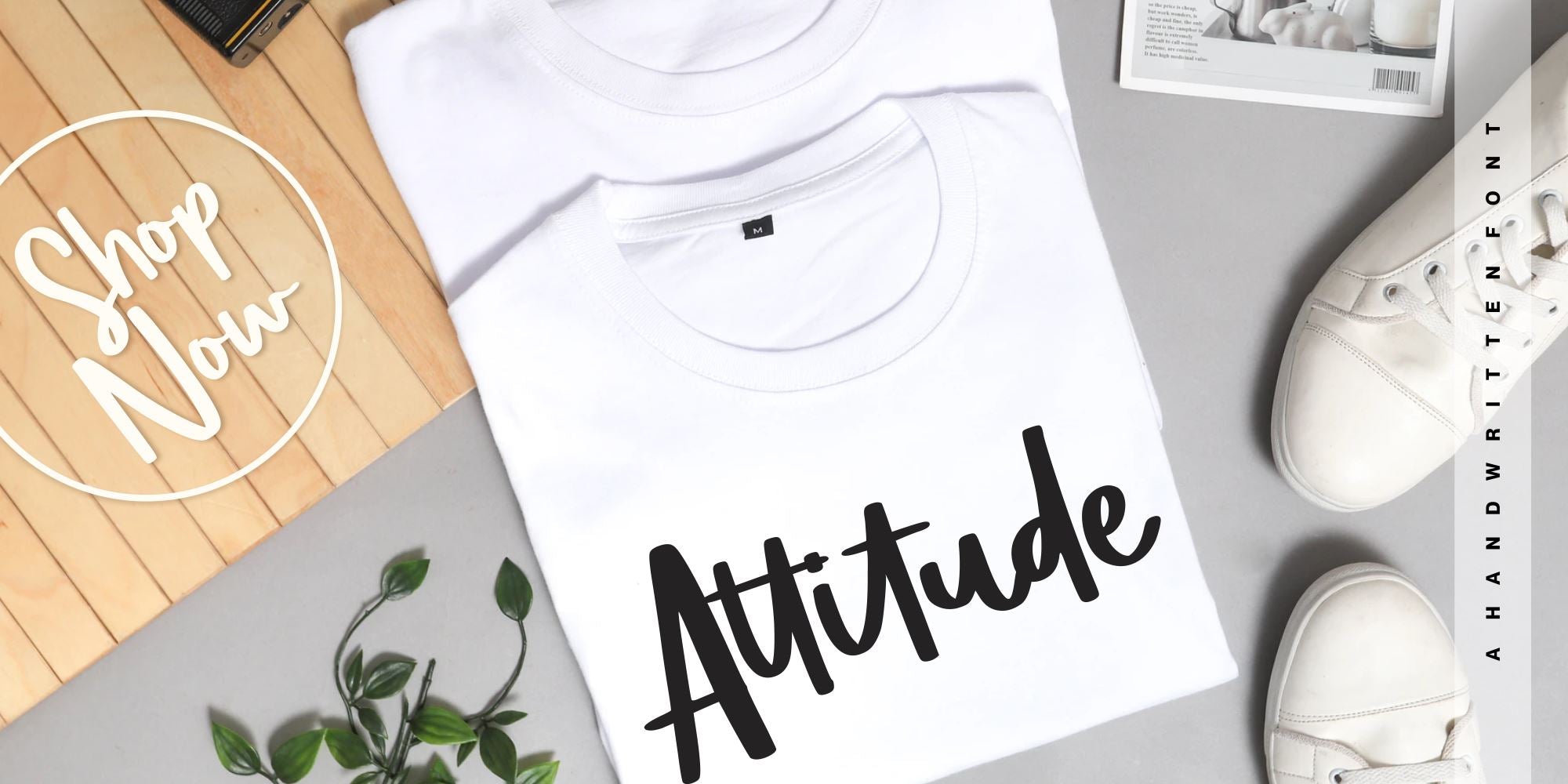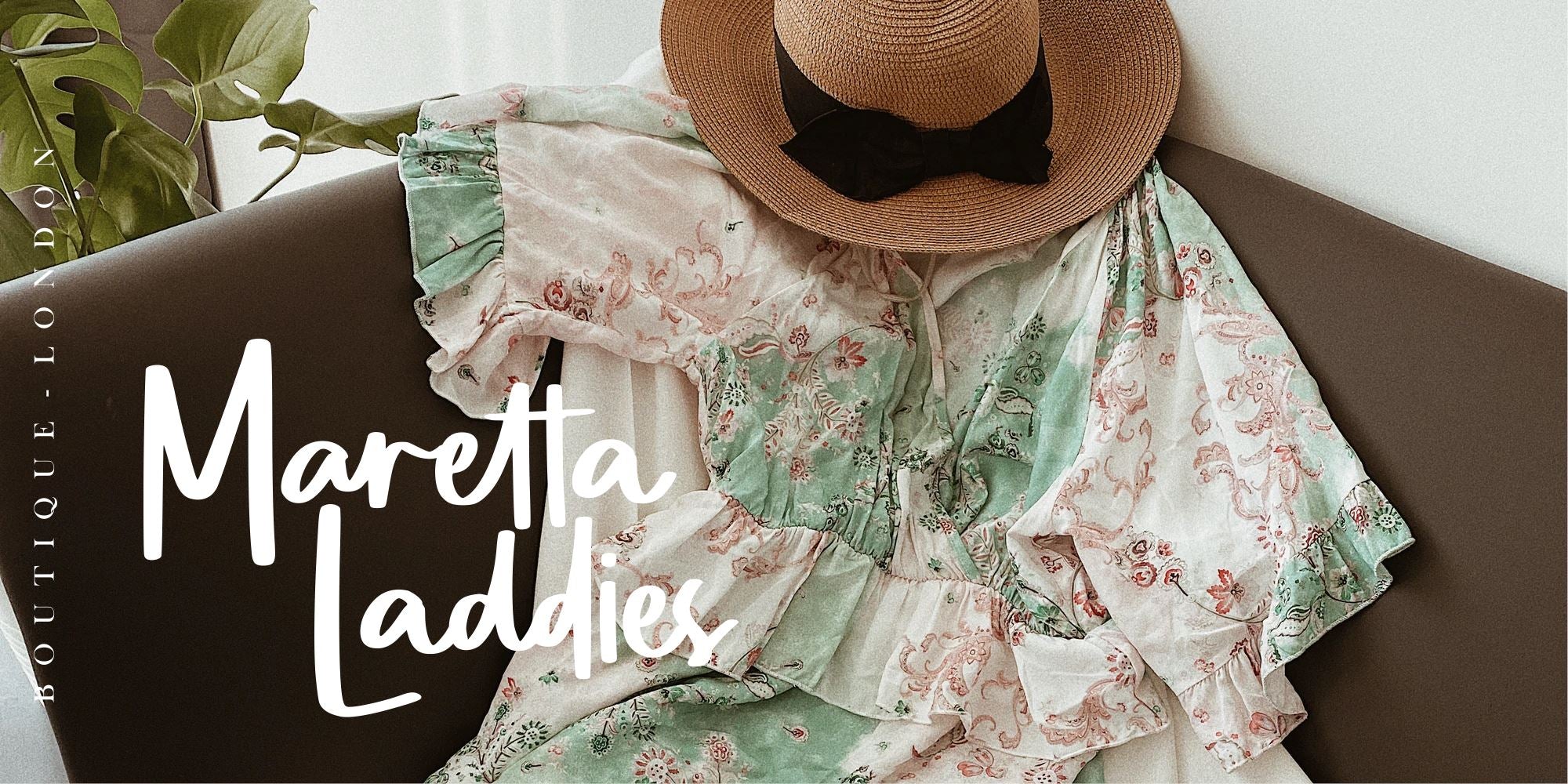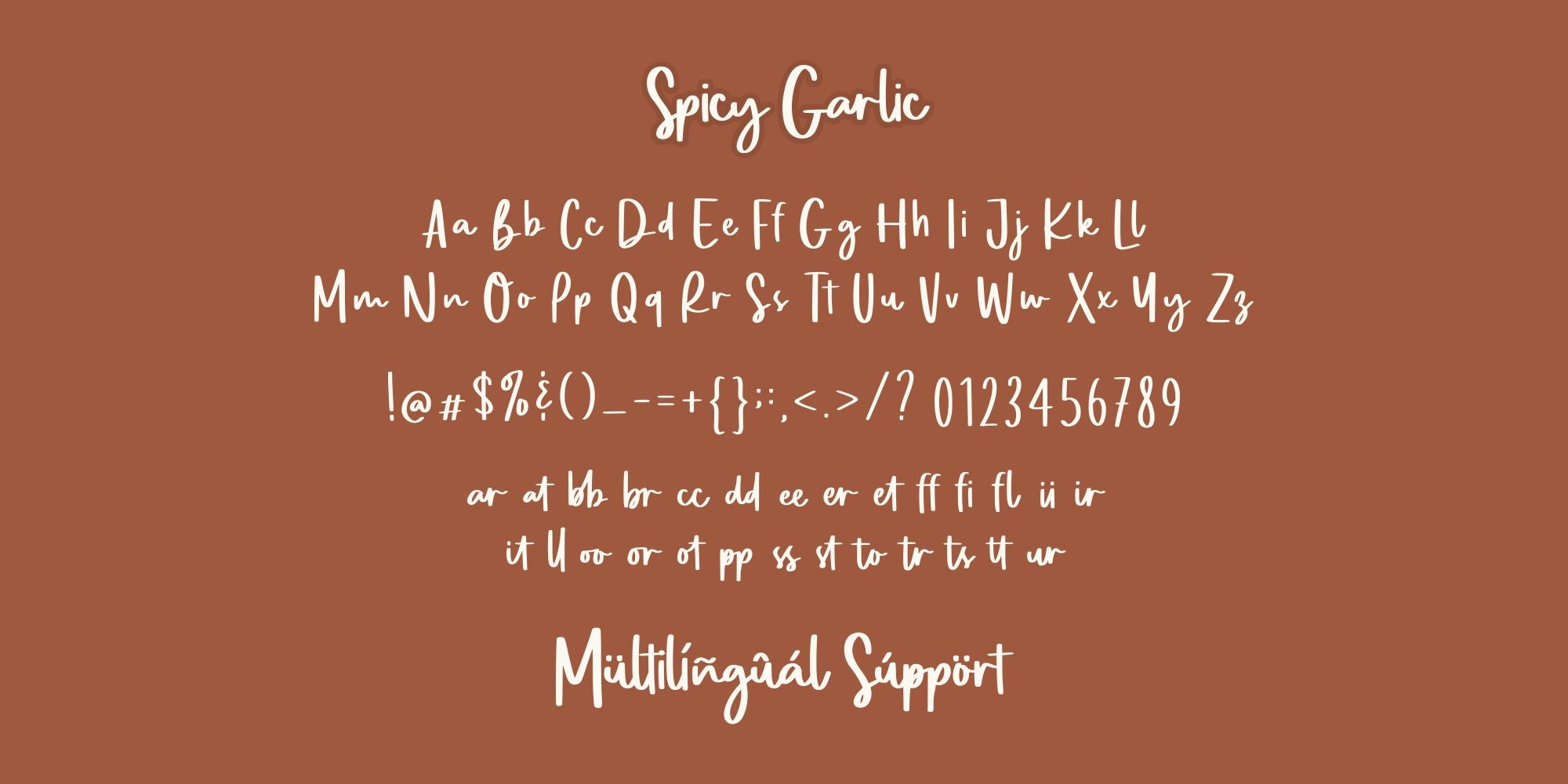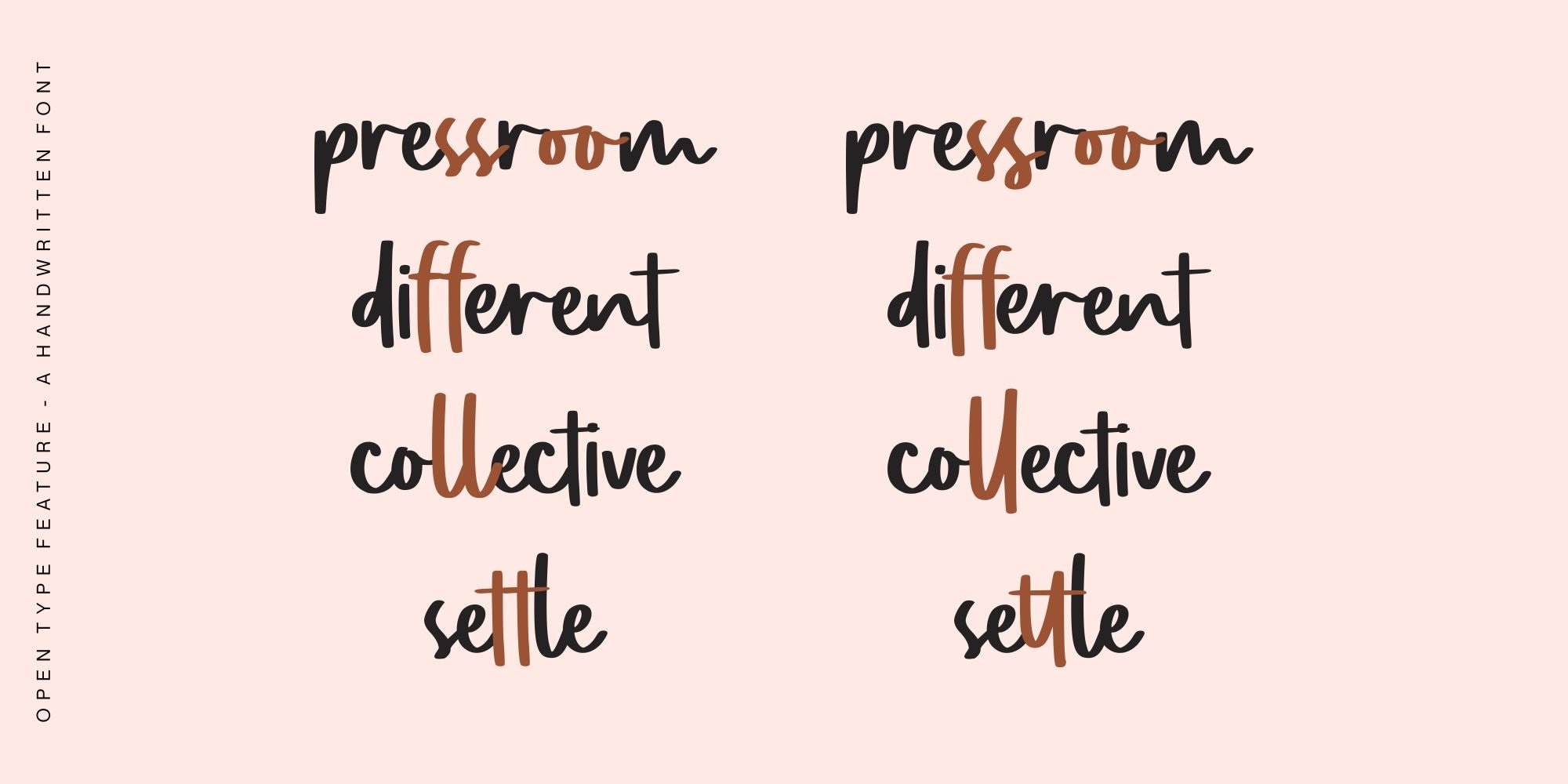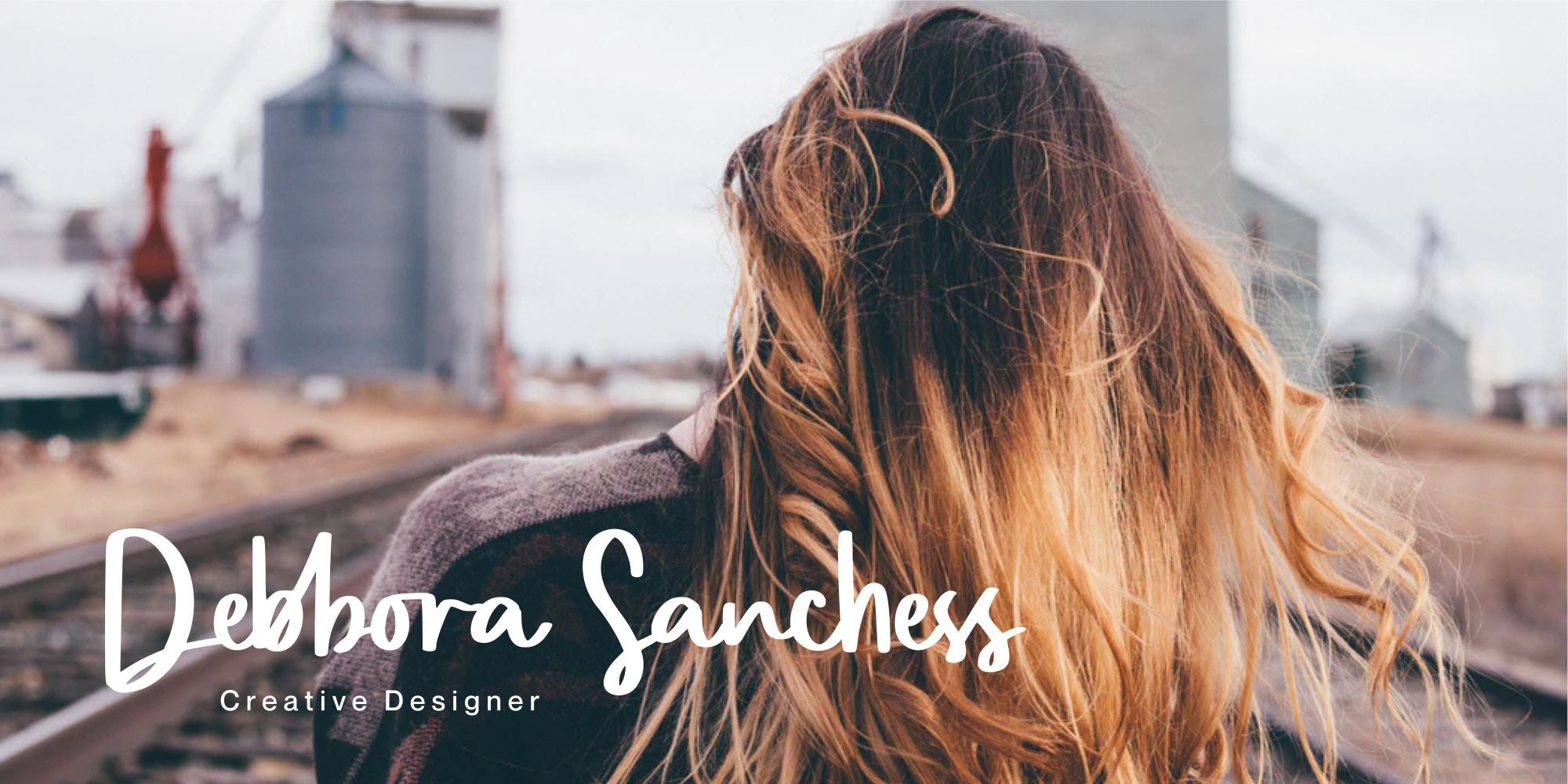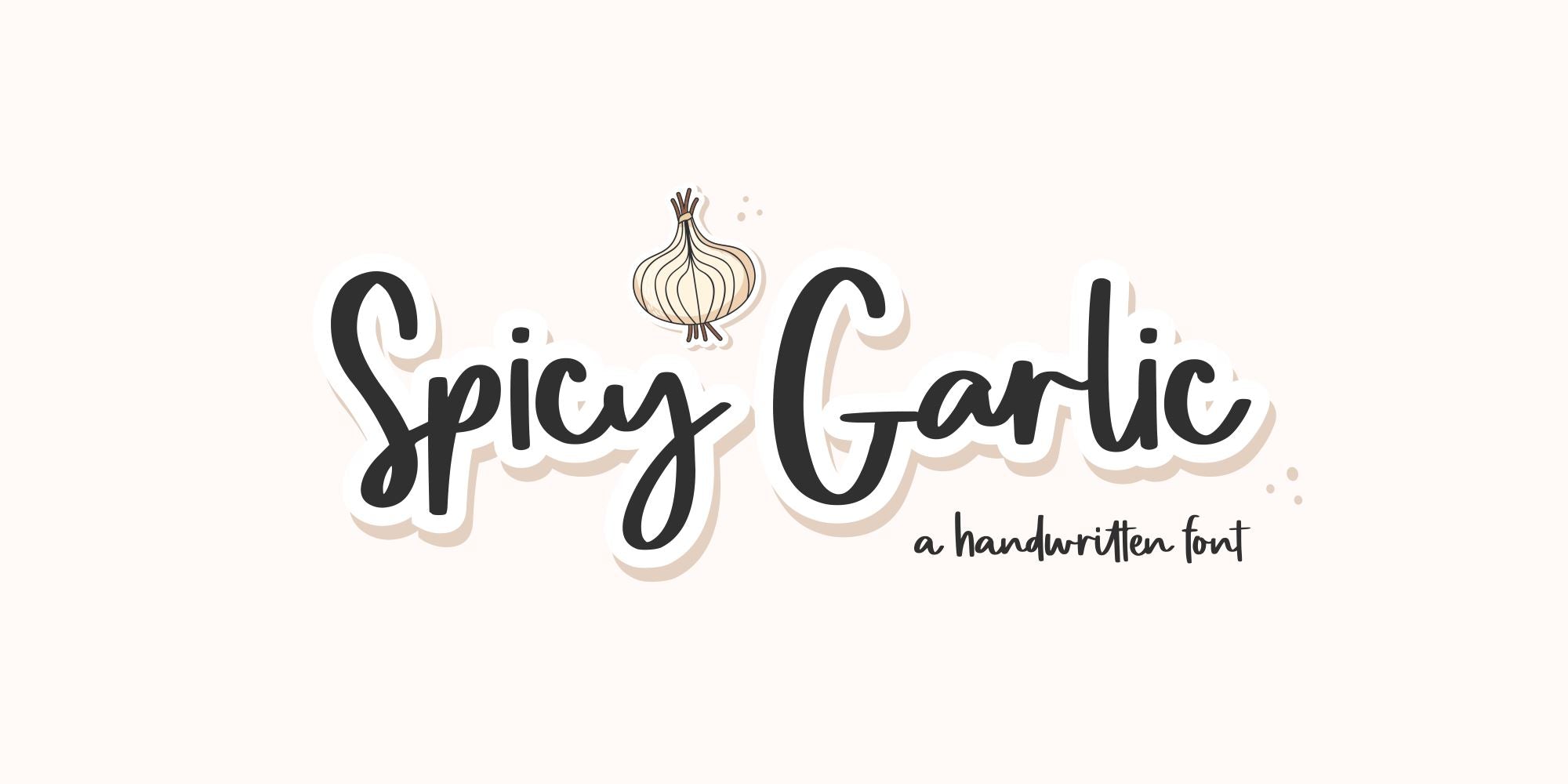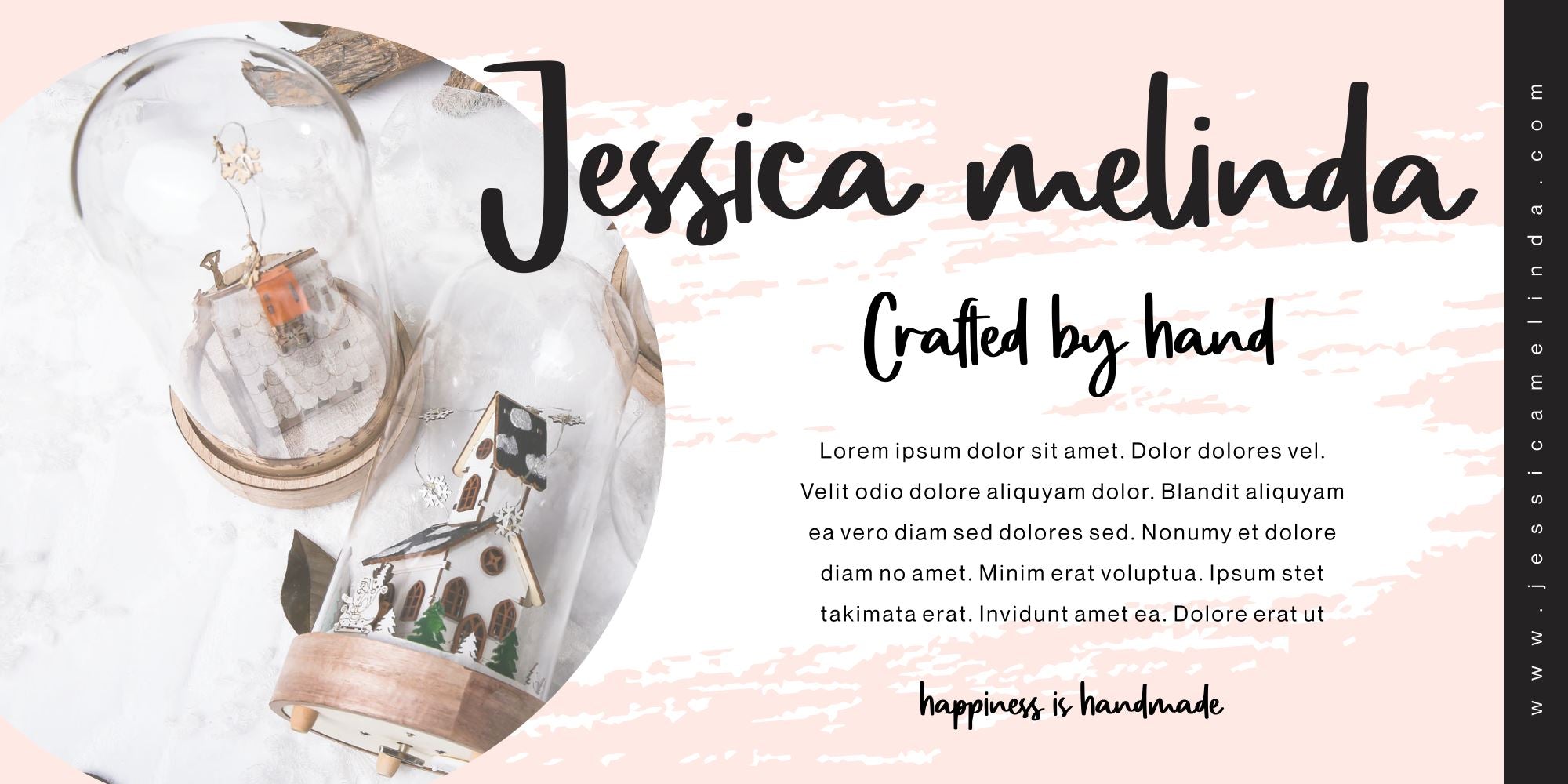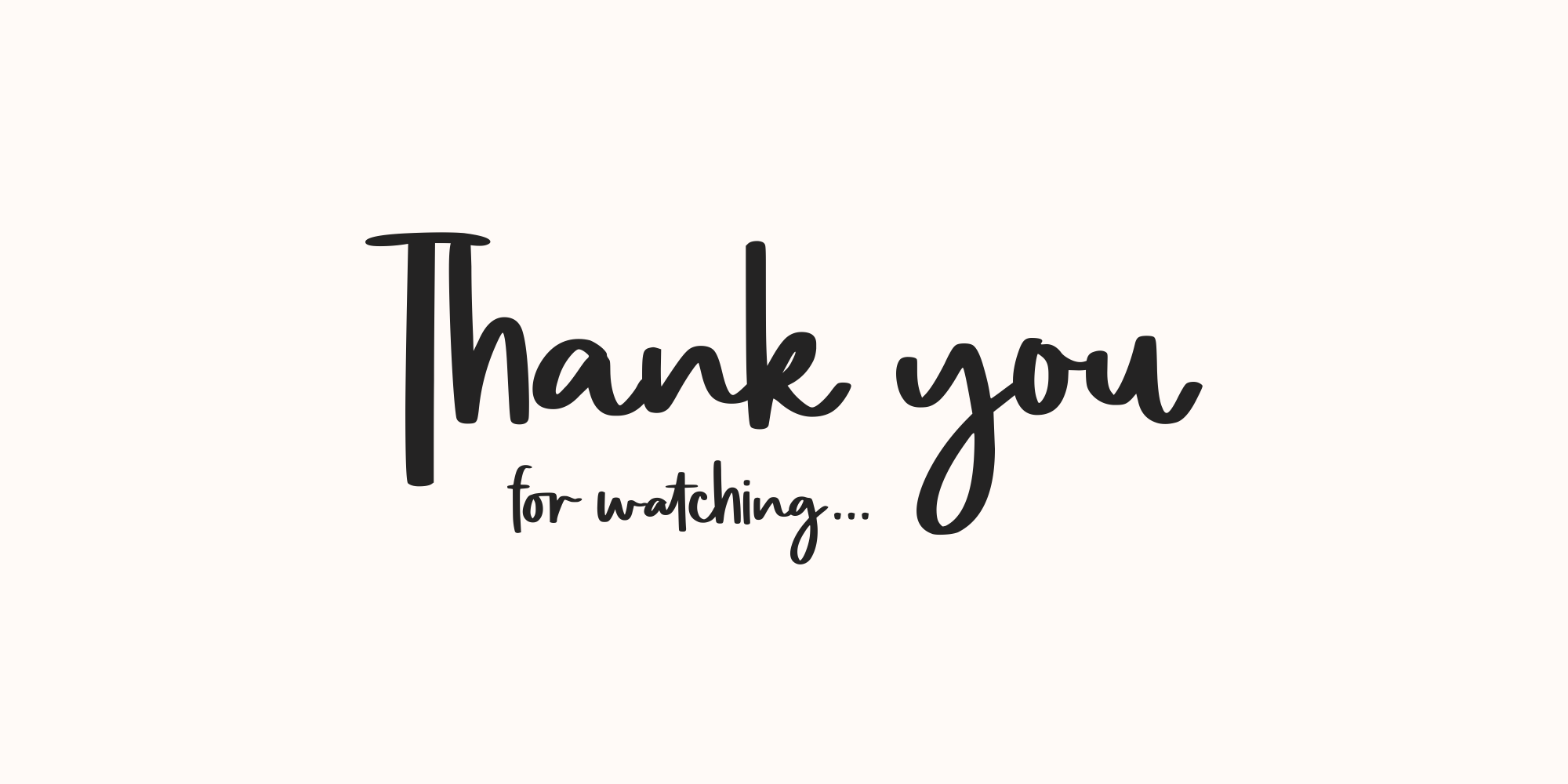
Spicy Garlic
About Spicy Garlic
Proudly Present, Spicy Garlic a Handwritten Brush Font. Spicy Garlic is perfect for any titles, logo, product packaging, branding project, megazine, social media, wedding, or just used to express words above the background. Spicy Garlic also come with Multi-Lingual Support. Enjoy the font, feel free to comment or feedback, send me PM or email. Thank You!